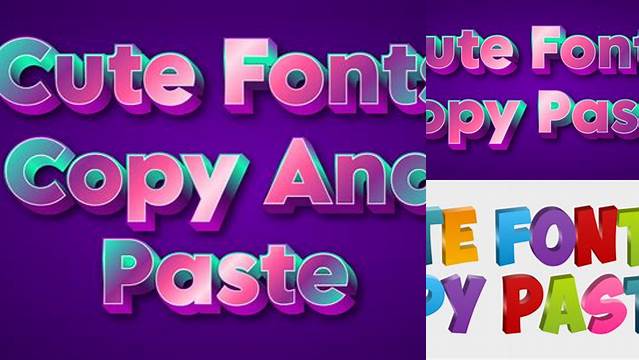
Get Cute Soft Fonts: Copy & Paste Magic!
Hey guys! Are you looking to sprinkle some sweetness and personality into your digital world? Then, you're in the right place! We're diving deep into the world of cute soft fonts today, showing you how to easily copy and paste them wherever your heart desires. Forget boring, generic text! We're talking about fonts that make your content pop, whether you're sprucing up your social media profiles, crafting adorable invitations, or simply adding a touch of whimsy to your daily notes. Get ready to transform your text from drab to fab with our guide to the cutest, softest fonts out there.
H2: Discover the Allure of Cute Soft Fonts: Why They're So Irresistible
Let's be honest, guys – we all love a little bit of cuteness! And cute soft fonts tap directly into that irresistible appeal. But what exactly makes them so special? These fonts aren't just about looking pretty; they're about communicating a feeling, an emotion, a vibe. Think about it: a bubbly, rounded font instantly conveys a sense of playfulness and approachability. It's like giving your words a warm hug. Unlike sharp, angular fonts that can feel cold or serious, cute soft fonts offer a sense of comfort and friendliness that draws people in. They're perfect for conveying messages that are meant to be lighthearted, fun, and engaging. From the gentle curves to the whimsical details, these fonts are designed to capture attention and leave a lasting impression. The beauty of using these fonts lies in their versatility. They can be incorporated into various projects, from personal projects like designing birthday cards and scrapbooks to professional projects like branding a children's boutique or creating social media graphics.
They're incredibly effective at conveying a sense of trust and warmth. They signal to the reader that the content is meant to be enjoyed, not just read. The use of cute soft fonts can significantly impact how your message is received, making your audience more receptive and engaged. These fonts can be particularly effective in marketing materials targeting children, young adults, or anyone who appreciates a touch of charm and creativity. Because these fonts have a unique style, they bring your text to life, adding a layer of personality that standard fonts simply can't match. They help create a visual identity that is memorable and reflects the brand's values. This is why, in a world saturated with digital content, the use of these fonts stands out, making the text more memorable. So, whether you're a blogger, a small business owner, or just someone who loves to express themselves creatively, cute soft fonts are a fantastic tool. They allow you to communicate your message in a way that is visually appealing and emotionally resonant. The use of a well-chosen font can instantly change the tone of your project, making it more inviting and enjoyable.
H2: How to Copy and Paste Cute Soft Fonts Like a Pro
Okay, now that we've got the fonts, let's get to the fun part: using them! Copying and pasting these cute soft fonts is surprisingly easy, and I'm going to show you the simplest ways to do it.